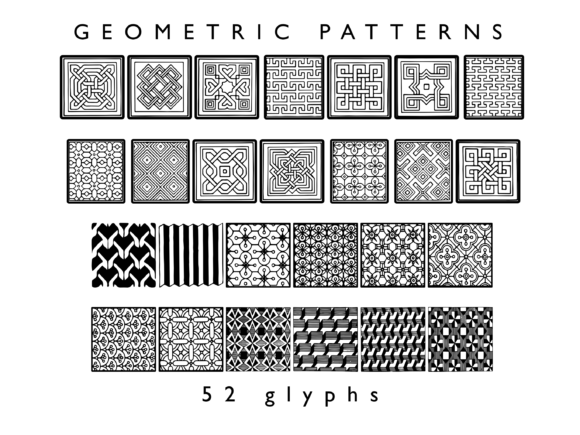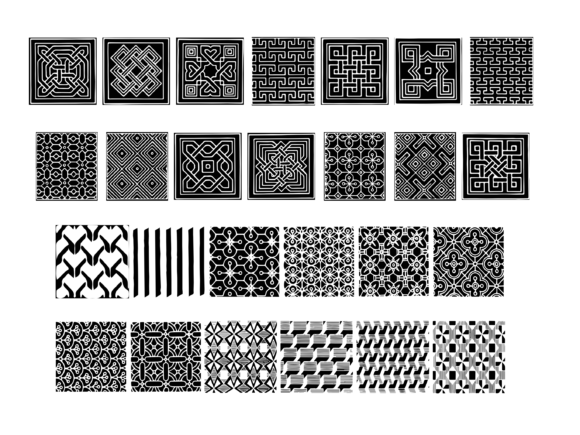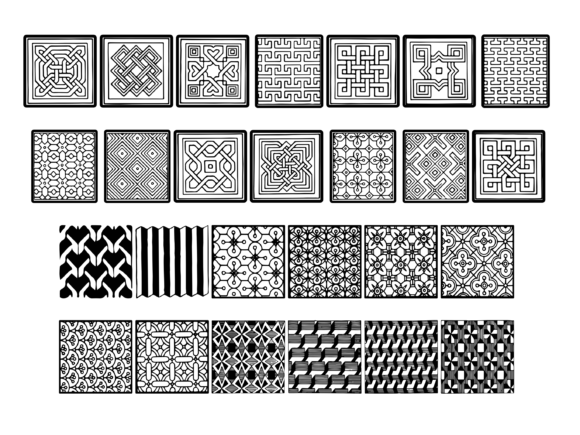
Geometric Patterns Font
About Geometric Patterns Font
Introducing Geometric Patterns, a versatile and creative dingbats font that will add a touch of visual interest and uniqueness to your designs. This font is specifically designed to offer a wide range of geometric and decorative patterns that can be used in various creative projects.
Geometric Patterns font features a collection of meticulously crafted glyphs, each representing a different geometric pattern. These patterns include lines, shapes, grids, and other abstract elements, all designed to bring a sense of structure and visual appeal to your designs.
Whether you’re working on graphic design projects, creating digital artwork, crafting invitations or greeting cards, or even decorating your personal journal, Geometric Patterns font offers endless possibilities. You can use these patterns as backgrounds, borders, or decorative elements to add an extra layer of creativity and visual interest to your designs.
The versatility of Geometric Patterns font allows you to experiment and explore different combinations of patterns, colors, and sizes, giving you the freedom to create truly unique and eye-catching designs. The clean and precise nature of the geometric patterns ensures that they maintain their visual appeal and clarity, even when used in complex compositions.
Geometric Patterns font is suitable for both digital and print projects, allowing you to use it in a wide range of mediums. From web graphics and social media posts to stationery, posters, and other printed materials, this font will add a unique and artistic touch to your creations.
Embrace the creative potential of Geometric Patterns font and let it inspire your designs. With its collection of decorative and eye-catching patterns, you can elevate your creative projects and make them stand out. Explore the endless possibilities, experiment with different combinations, and let your creativity shine with Geometric Patterns font.